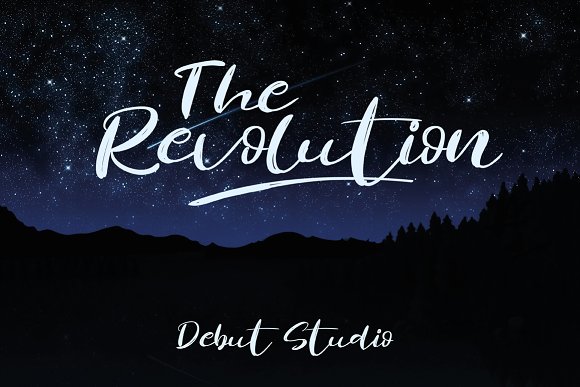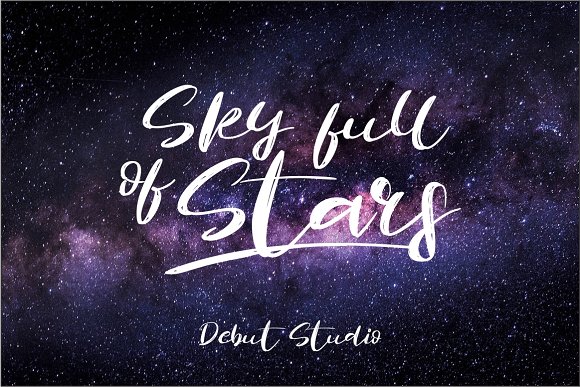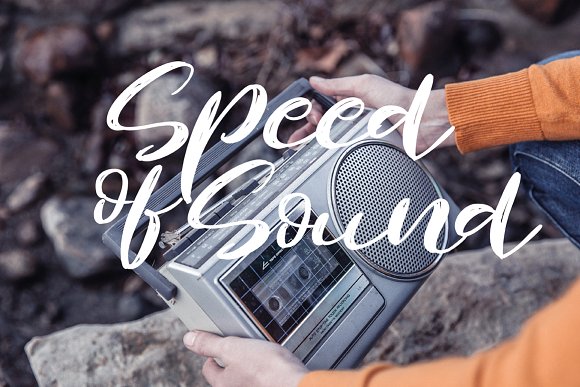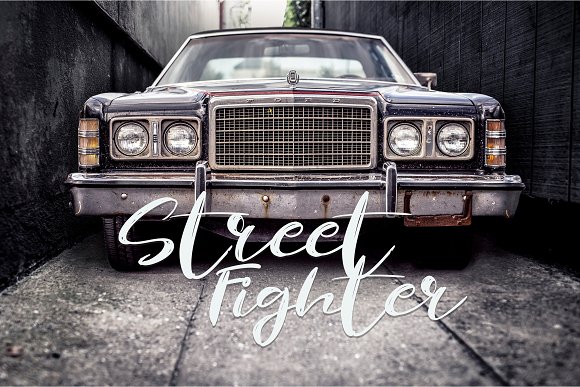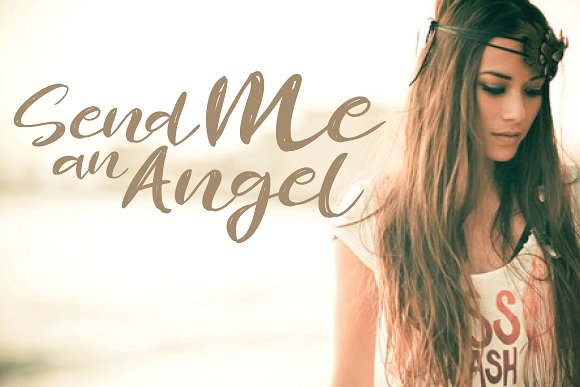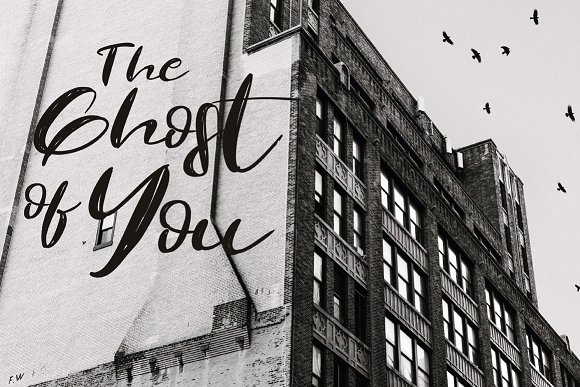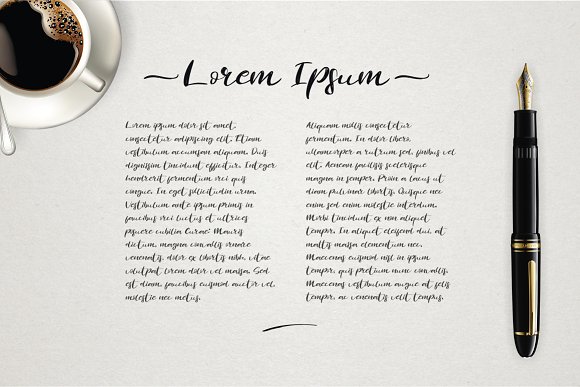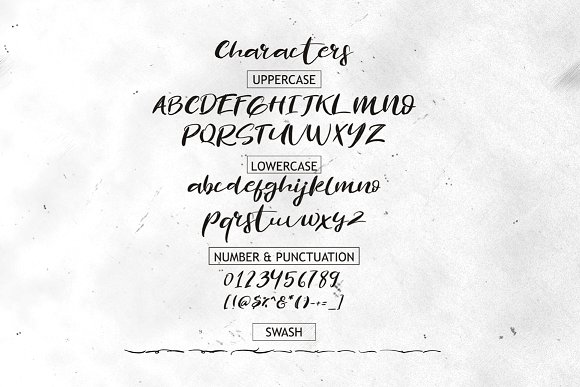
Revolution Brush Font
About Revolution Brush Font
Revolution Brush is a delicate handmade font.
This font was hand painted with a fine brush pen and is great for adding some personality to designs. Works great on digital, print & apparel.